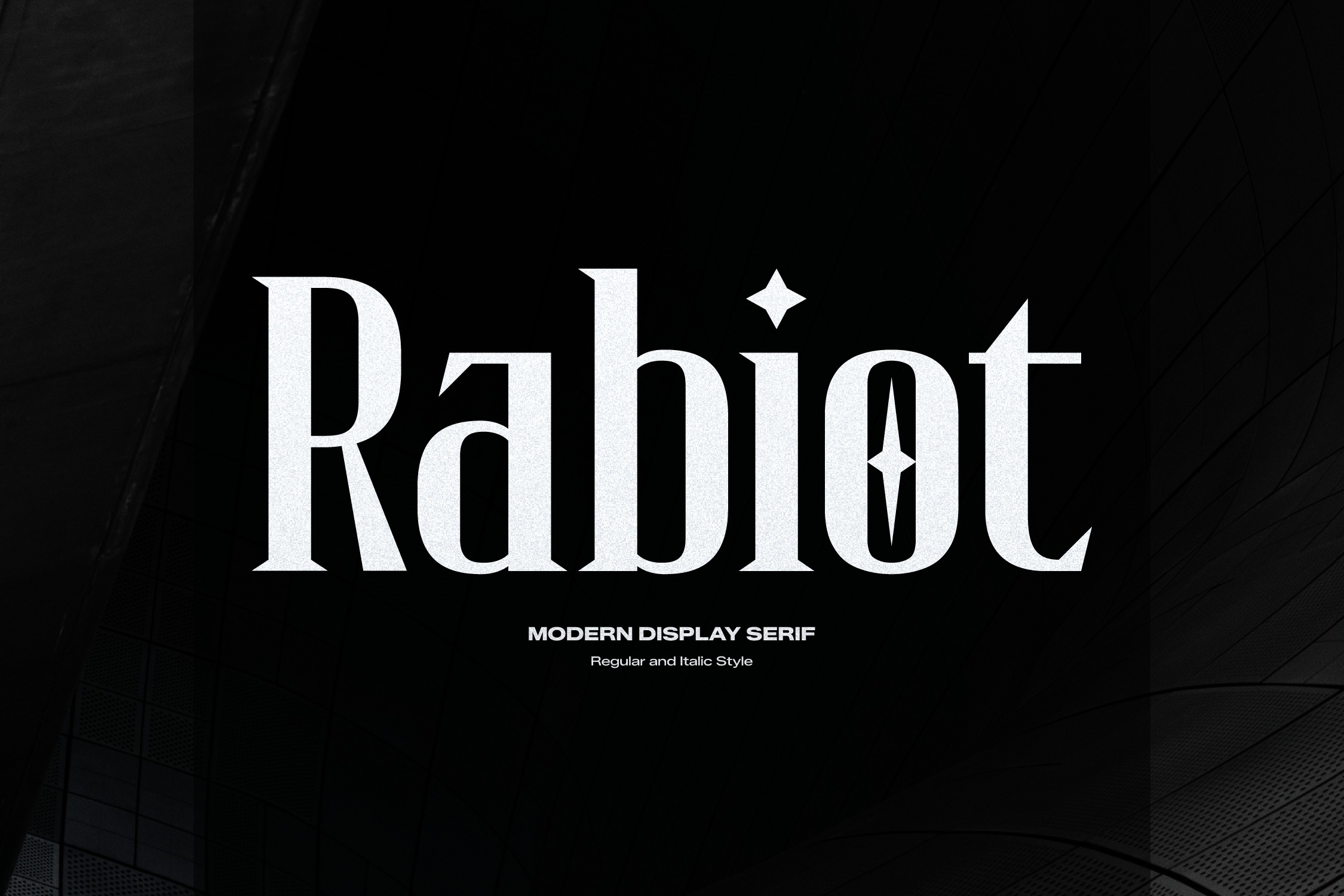
Rabiot Font
Rabiot Font is a professionally designed typeface that delivers clarity, structure, and consistent performance across various design applications. Rabiot | Modern Display Serif, from Gracetypestudio, suitable for any projects such as: logos, branding projects, homeware designs, product packaging, mugs, quotes, posters, shopping bags, t-shirts, book covers, name card, invitation cards, greeting cards, label, photography, watermark, special events, and all your other lovely projects that need a serif taste.